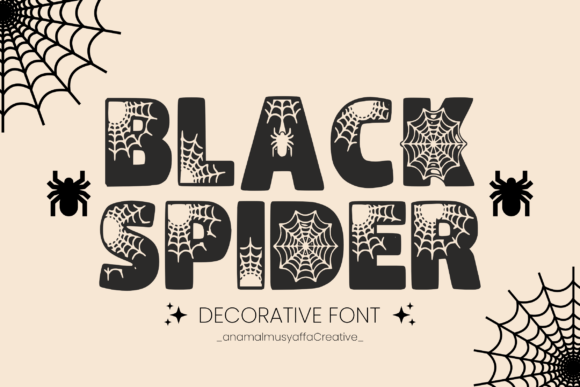
Unveiling the Chilling Black Spider Font
Imagine you’re working on a midnight design project, and you need that perfect font to send shivers down your spine. The moon is full, the lights are dim, and the shadows dance on your walls. Suddenly, your cursor starts dancing across the screen as you search for the ultimate typographic companion. This is when you stumble upon the Black Spider Font, a chilling and mysterious font that will transport your designs to a realm of the unknown.
Expertly crafted to evoke a sense of the supernatural, this font is perfect for designers who want to add a touch of the macabre or the eerie to their projects. The Black Spider Font is not just a novelty, but a versatile tool that can be used in a variety of creative contexts, from sublimation prints to comic strips and beyond.
Black Spider Font Key Features
- Unique Characteristic: The Black Spider font features a distinctive, hand-drawn style with intricate details and a bold, edgy feel.
Designer Review: Black Spider Font
Overall, I think the Black Spider Font has some great qualities that make it a solid addition to any designer’s toolkit. ✨ The first thing that caught my eye was the unique, hand-drawn feel of the font. It’s perfect for adding a touch of personality to a project without being too over-the-top. ✨ The font also does a great job of conveying a sense of sophistication and elegance, making it a great choice for high-end branding and marketing materials.
Another thing I like about Black Spider Font is its versatility. ✨ It comes in a range of weights and styles, from light to bold, and even has some fun, decorative options that can add some visual interest to a design. This makes it easy to use the font in a variety of contexts, from headlines to body text.
- ⚠️ Limited language support: Unfortunately, Black Spider Font only comes in a limited range of languages, which may make it less useful for designers working on global projects.
- ⚠️ Not ideal for small text: While the font looks great at larger sizes, it can be a bit difficult to read at smaller sizes, which may limit its use in certain contexts.
Overall, I think the Black Spider Font is a great choice for designers who want to add some unique personality to their projects. While it may have some limitations, its versatility and elegant feel make it a solid addition to any designer’s toolkit.
Use the Black Spider Font for creating spooky or mysterious designs, such as Halloween-themed invitations or horror movie posters.
Alternatives to Black Spider Font
1. Bangers Font
Bangers is a sans-serif font with a bold, distressed look. It’s ideal for use in titles, headings, and other prominent text where a strong, edgy feel is desired. Bangers is a great alternative to Black Spider Font for designers looking for a similar aesthetic without the rough, spider-web texture.
2. Bloodline Font
Bloodline is a font with a bold, graffiti-inspired look. It’s perfect for use in titles, headings, and other prominent text where a strong, urban feel is desired. Bloodline is a great alternative to Black Spider Font for designers looking for a similar edgy feel, but with a more modern and sleek design.